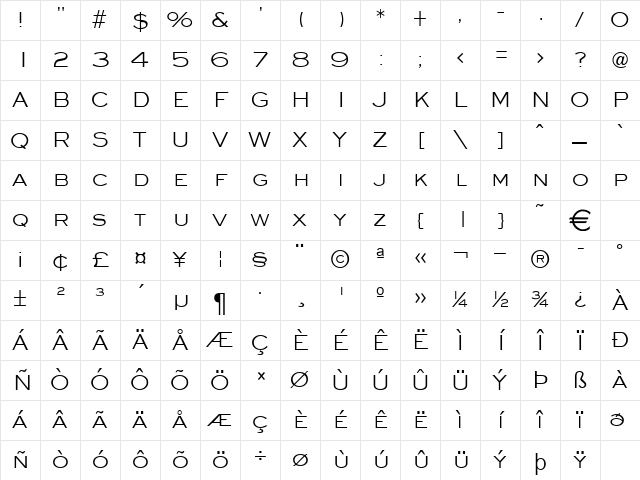
Eyeglass Normal Free Font
Eyeglass Normal
Eyeglass Family
Complete Eyeglass Normal glyph index. Displaying only characters natively supported by Eyeglass Normal font.
Design Context for Eyeglass
Eyeglass is a composed and adaptable typeface that performs quietly and consistently across a wide range of design contexts.